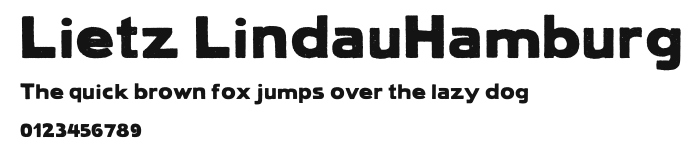
• Font Name: Lietz LindauHamburg
• Designer: Polenimschaufenster
About Lietz LindauHamburg.otf
Lietz LindauHamburg.otf is a modern, elegant sans-serif font designed for ultimate readability and visual harmony. Perfect for branding, headlines, web design, and print materials.